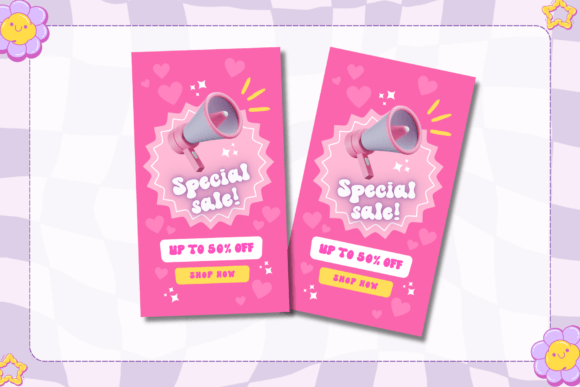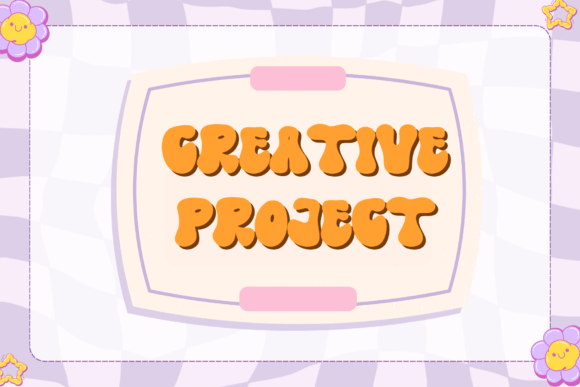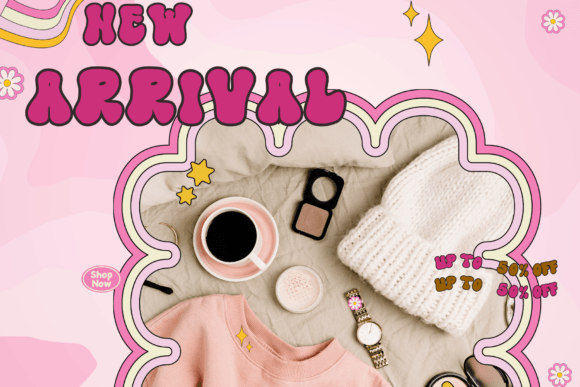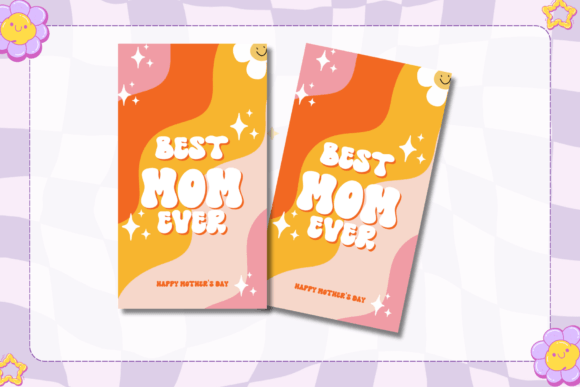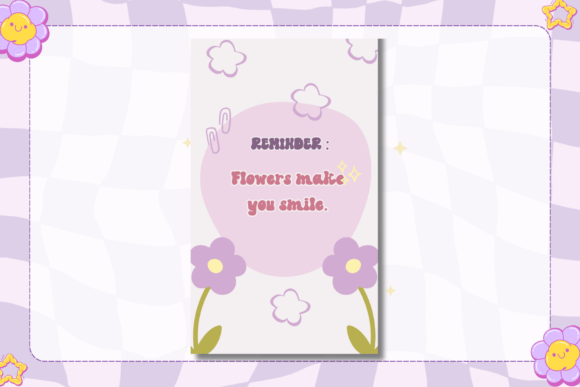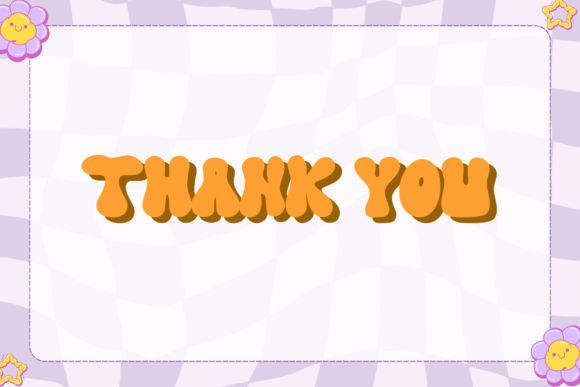
Unleash a Wave of Retro Charisma with Groovy Hug Font
Are you looking for a typeface that can instantly elevate your typography projects with a delightful vintage aura? Look no further than Groovy Hug, a substantial and whimsical display face that’s sure to make your designs stand out. In this article, we’ll dive into the world of Groovy Hug and explore its features, benefits, and uses.
A Nostalgic Journey with Groovy Hug
Groovy Hug is a meticulously crafted typeface that weaves in a nostalgic journey with each letter. Its vintage-inspired design is perfect for designers and crafters who want to add a touch of retro charisma to their projects. Whether you’re creating radiant posters, striking headlines, apparel designs, or kids’ shirts, Groovy Hug seamlessly melds in, broadcasting a fun, playful message.
Features of Groovy Hug Font
So, what makes Groovy Hug font so special? Here are some of its key features:
- Whimsical Design: Groovy Hug has a unique, hand-crafted design that’s full of character and personality.
- Vintage Aura: The font’s vintage-inspired design is perfect for projects that require a retro touch.
- Substantial and Bold: Groovy Hug is a display face that’s designed to make a statement. Its bold and substantial design ensures that your text won’t go unnoticed.
- Playful Message: The font’s playful design broadcasts a fun and playful message, making it perfect for projects that require a lighthearted touch.
Uses of Groovy Hug Font
Groovy Hug font is versatile and can be used in a variety of projects, including:
- Posters and Flyers: Add a touch of retro charisma to your posters and flyers with Groovy Hug.
- Apparel Designs: Create eye-catching apparel designs with Groovy Hug, perfect for t-shirts, hoodies, and more.
- Kids’ Shirts: Groovy Hug is perfect for kids’ shirts, adding a playful and fun touch to your designs.
- Banners: Give your banners a trendy makeover with Groovy Hug, ensuring they stand out in a crowd.
Benefits of Using Groovy Hug Font
So, why should you choose Groovy Hug font for your projects? Here are some benefits:
- Instant Recognition: Groovy Hug’s bold and substantial design ensures that your text will be instantly recognized.
- Emotional Connection: The font’s playful and whimsical design creates an emotional connection with your audience, making your message more relatable.
- Versatility: Groovy Hug can be used in a variety of projects, making it a versatile addition to your font library.
- Easy to Read: Despite its bold design, Groovy Hug is easy to read, making it perfect for headlines and titles.
Tips for Using Groovy Hug Font
Here are some tips for using Groovy Hug font effectively:
- Use it Sparingly: Groovy Hug is a bold font, so use it sparingly to avoid overwhelming your design.
- Pair it with Other Fonts: Pair Groovy Hug with other fonts to create a unique and visually appealing design.
In conclusion, Groovy Hug font is a substantial and whimsical display face that’s perfect for designers and crafters who want to add a touch of retro charisma to their projects. Its vintage-inspired design, playful message, and versatility make it a great addition to any font library. With its bold and substantial design, Groovy Hug is sure to make your text stand out and leave a lasting impression on your audience.
So, prepare for a nostalgic journey with each letter, as Groovy Hug raises the design stakes. Try it out today and see how it can elevate your typography projects to the next level!